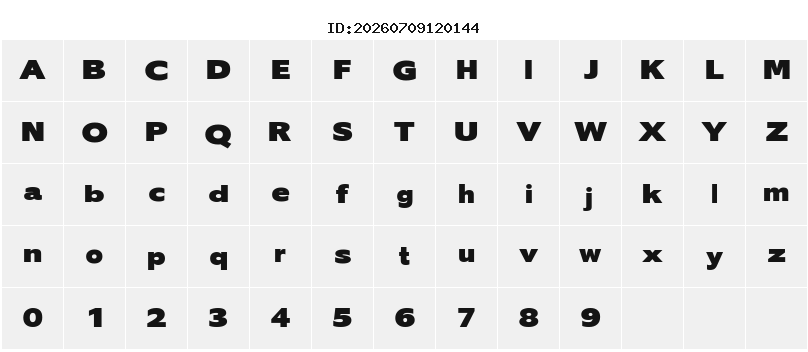
千图厚黑体 Preview
• Font Name: 千图厚黑体
• Font ID: qiantuhouheiti
• Full Font Name: 千图厚黑体
• PostScript Name: qiantuhouheiti
• Character Count: 6948
• Designer: 上海品图网络信息科技有限公司
• Manufacturer: 上海品图网络信息科技有限公司
About 千图厚黑体.ttf
千图厚黑体.ttf is a modern, elegant sans-serif font designed for ultimate readability and visual harmony. Perfect for branding, headlines, web design, and print materials.